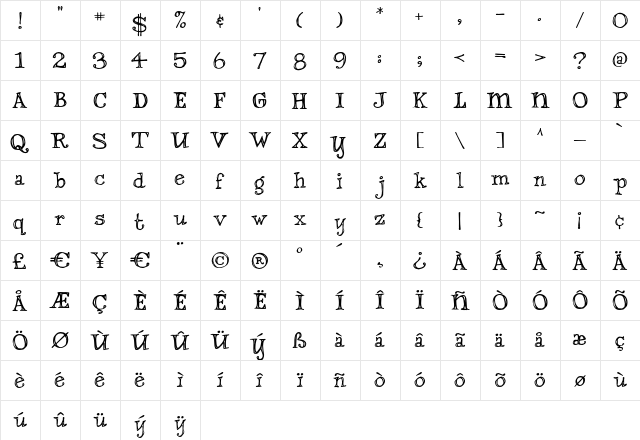
Dannette Outline Regular
| Foundry | Fonthead Design Inc. |
| Designer | Ethan Dunham |
Design Context for Dannette Outline Typeface
Dannette Outline brings ornamental detail and strong personality to headlines and identities, where visual impact matters more than quiet functionality.
Font Pairing: Pair with a clean neutral sans-serif for body copy to let Dannette Outline's character lead without overwhelming the composition.
Pro Tip: Treat Dannette Outline as the centrepiece of your typographic hierarchy. One strong heading set in a decorative face can carry an entire layout.